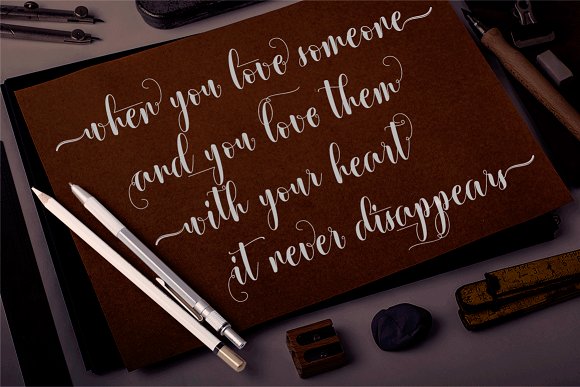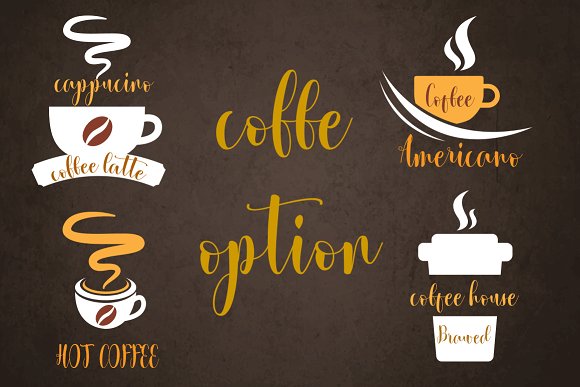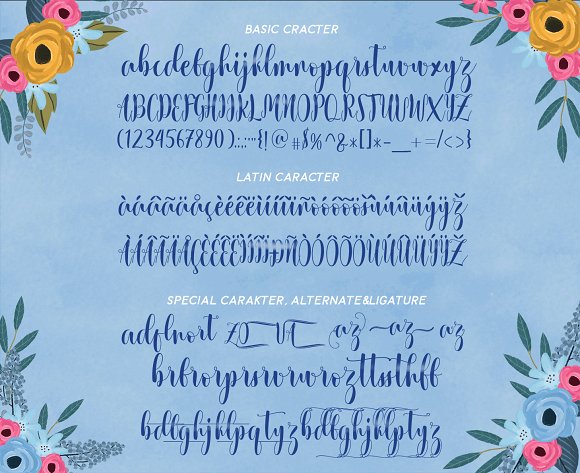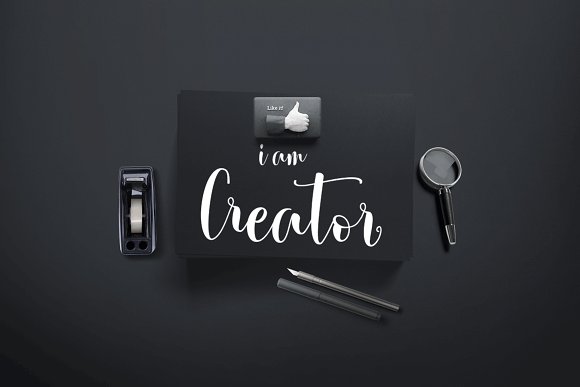
Xandrella Script Font
Xandrella Script is a stylish calligraphy font that features a varying baseline, smooth line, classic and interesting touch. Can be used for various purposes. such as headings, signature, logos, posters, t-shirt, signage, lable, wedding invitation, badges etc.